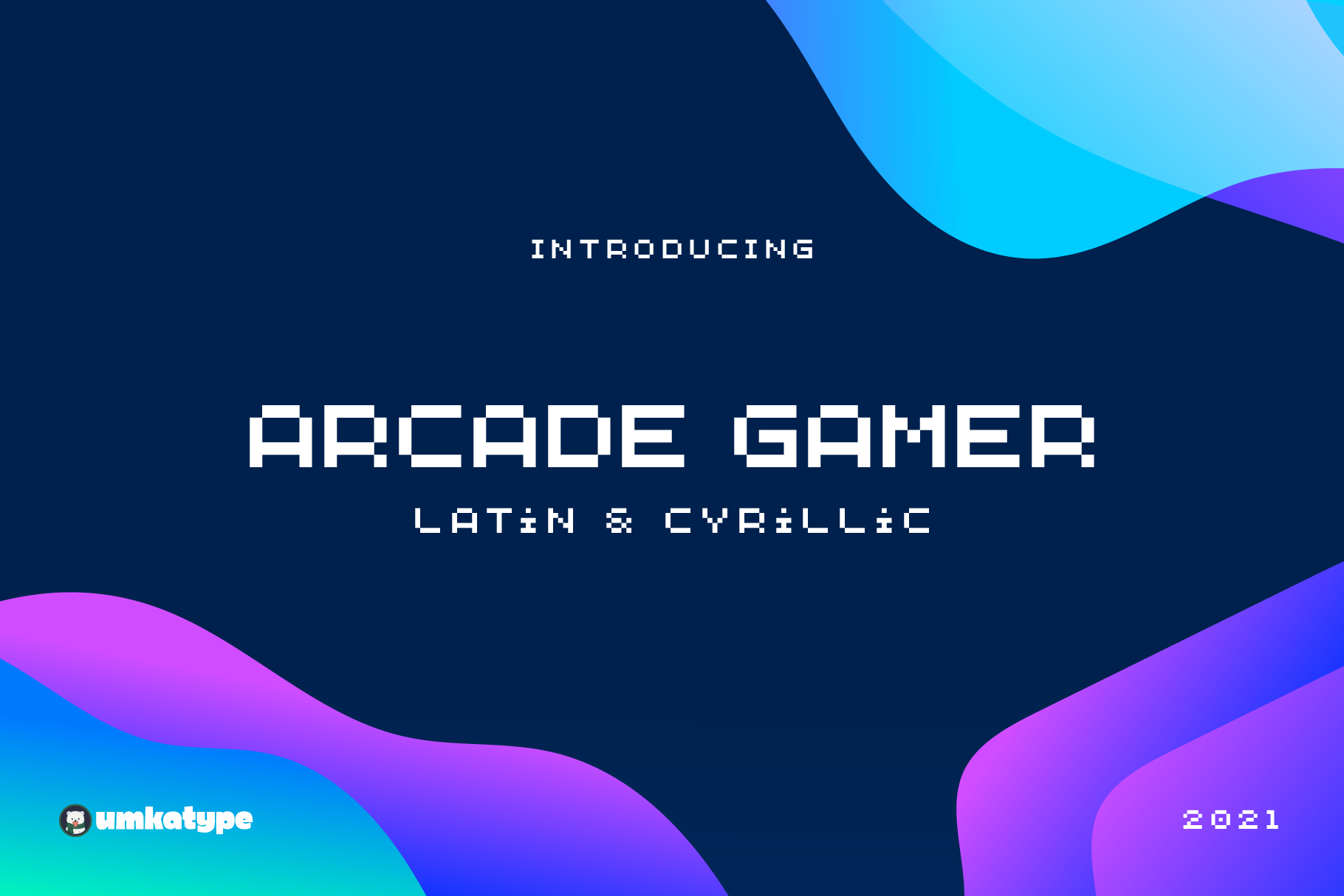
Arcade Gamer Pixel Font
Arcade Gamer - A Display Font
- Arcade Gamer is a carefully crafted font.
- Multilingual: It has Extended Latin and Extended Cyrillic letters.
Arcade Gamer created for games, web design, branding and social media works.